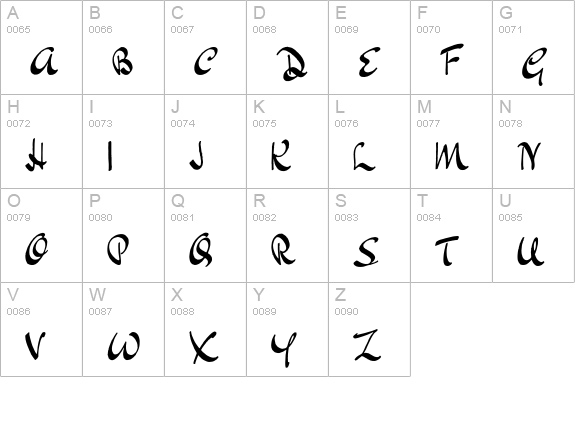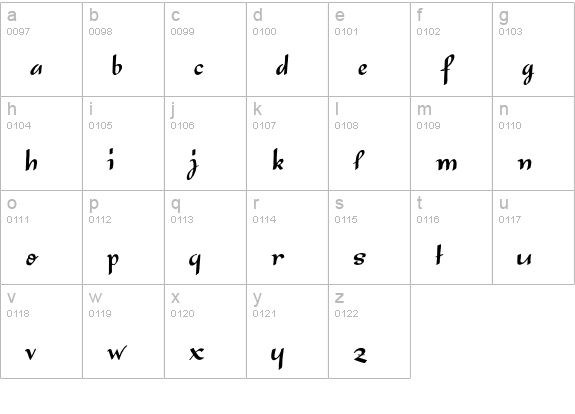
Japanese Tourist Font Details
Introducing the captivating Japanese Tourist font, a mesmerizing typeface that encapsulates the essence of Japan's vibrant culture and rich heritage. This font is a perfect blend of traditional and contemporary design, making it an ideal choice for any project that seeks to immerse its audience in the beauty of Japan. Japanese Tourist font exudes elegance and sophistication, with its intricate strokes and delicate details. Each character is meticulously crafted, paying homage to the exquisite calligraphy and typography seen throughout Japan's history. The graceful curves and precise lines of this font evoke a sense of tranquility, instantly transporting the reader to the serene landscapes of the Land of the Rising Sun. One of the most remarkable features of the Japanese Tourist font is its versatility. Whether you are designing a travel brochure, a restaurant menu, or a website dedicated to Japanese culture, this font will effortlessly capture the attention of your audience and convey the desired message with finesse. But what truly sets the Japanese Tourist font apart is that it is freely available to download at FontsMarket.com. Yes, you read that right - this exceptional font can be yours without any cost. FontsMarket.com is dedicated to providing designers, artists, and enthusiasts with high-quality fonts that enhance their creative endeavors. With just a few clicks, you can add the Japanese Tourist font to your collection and unlock a world of possibilities. Don't miss the opportunity to elevate your designs with the allure of Japan. Download the Japanese Tourist font today and embark on a visually stunning journey that will captivate your audience and leave a lasting impression.